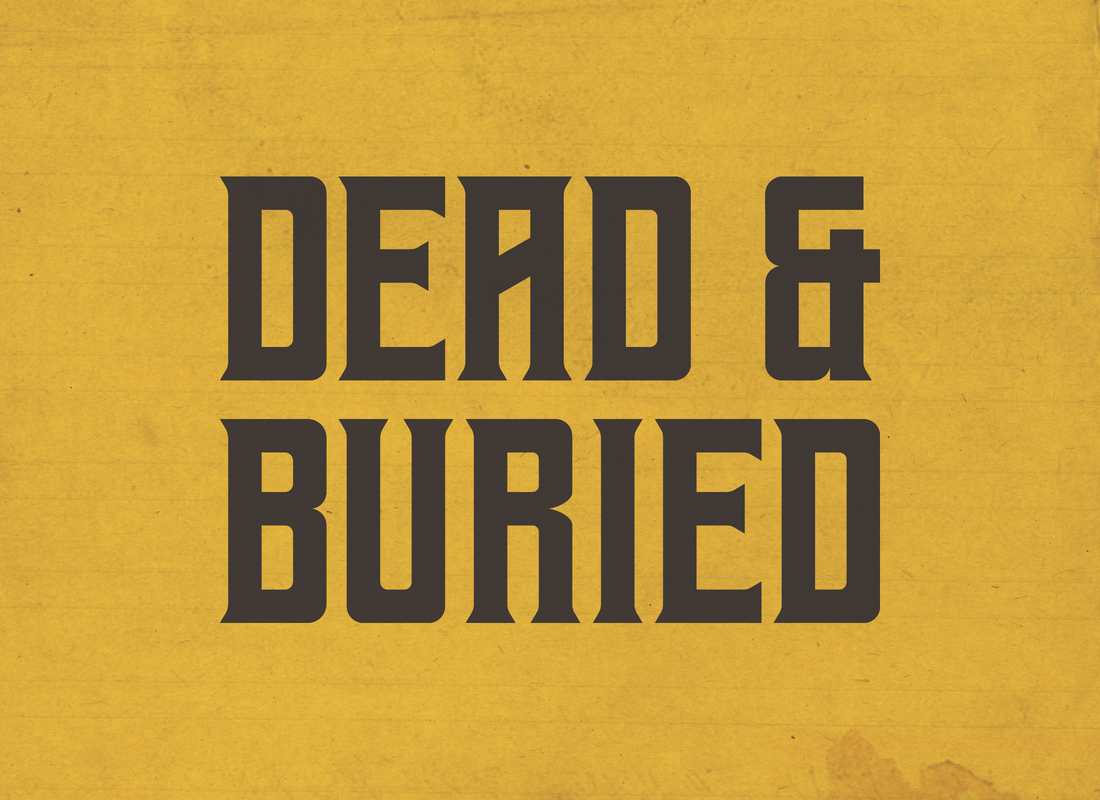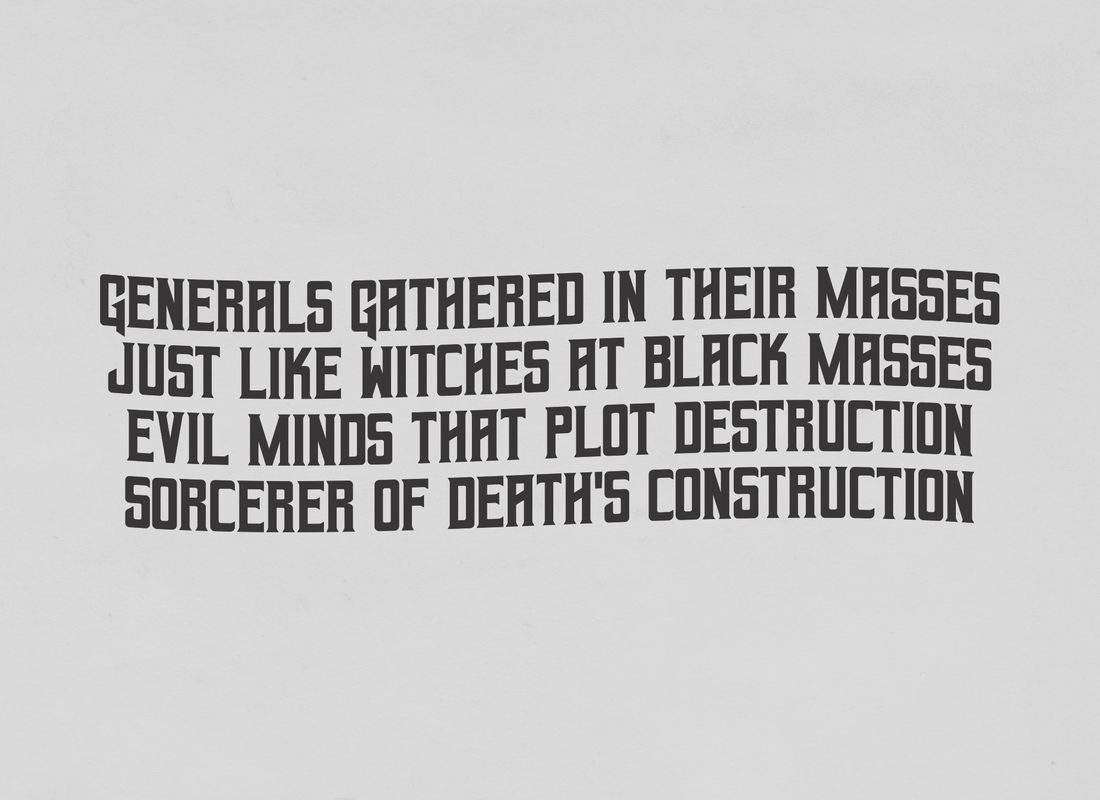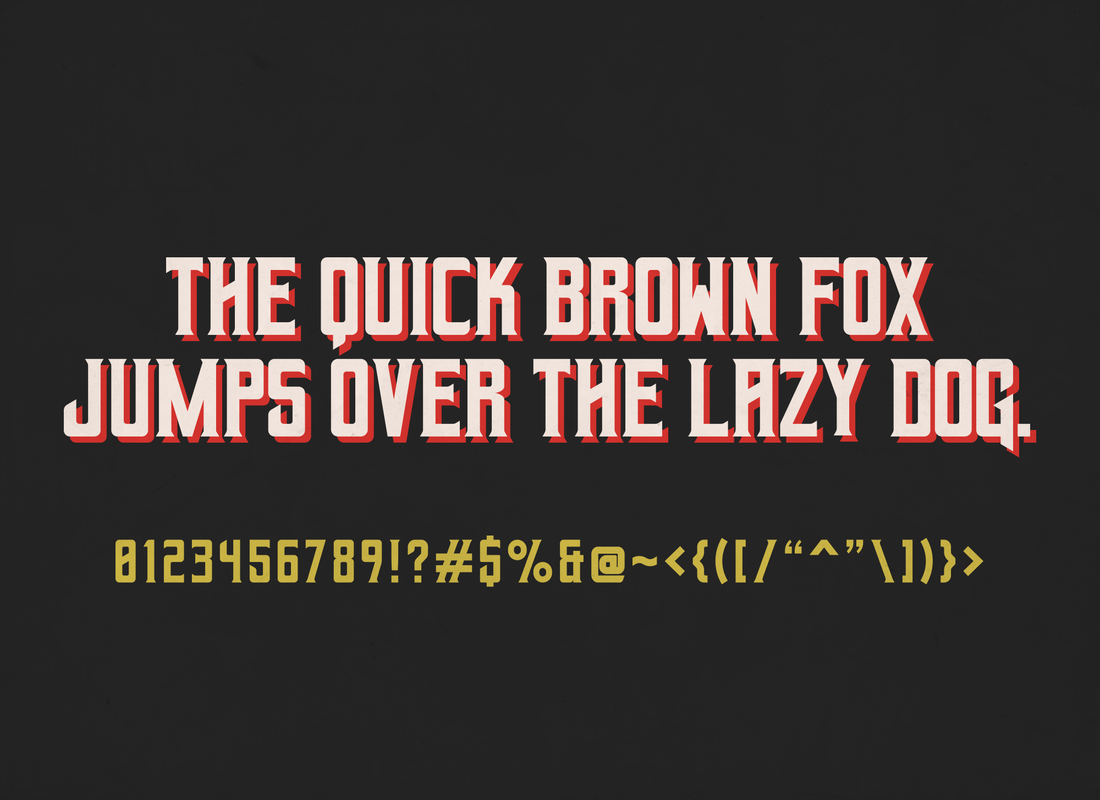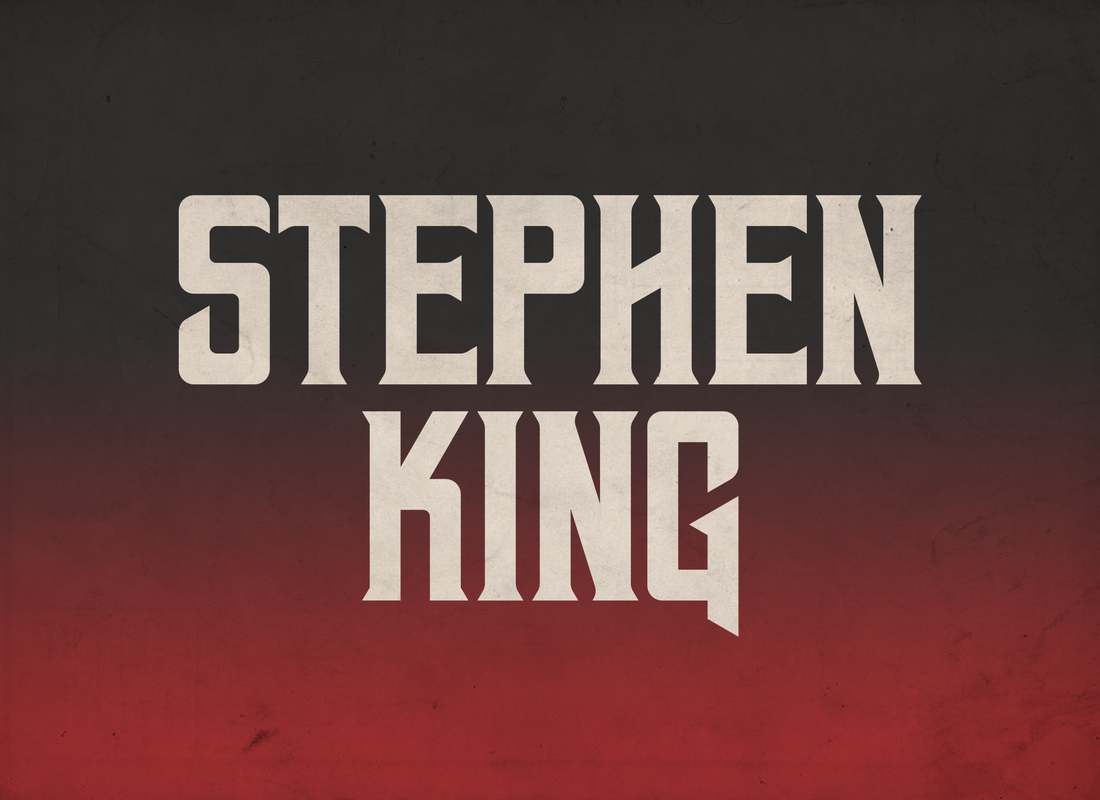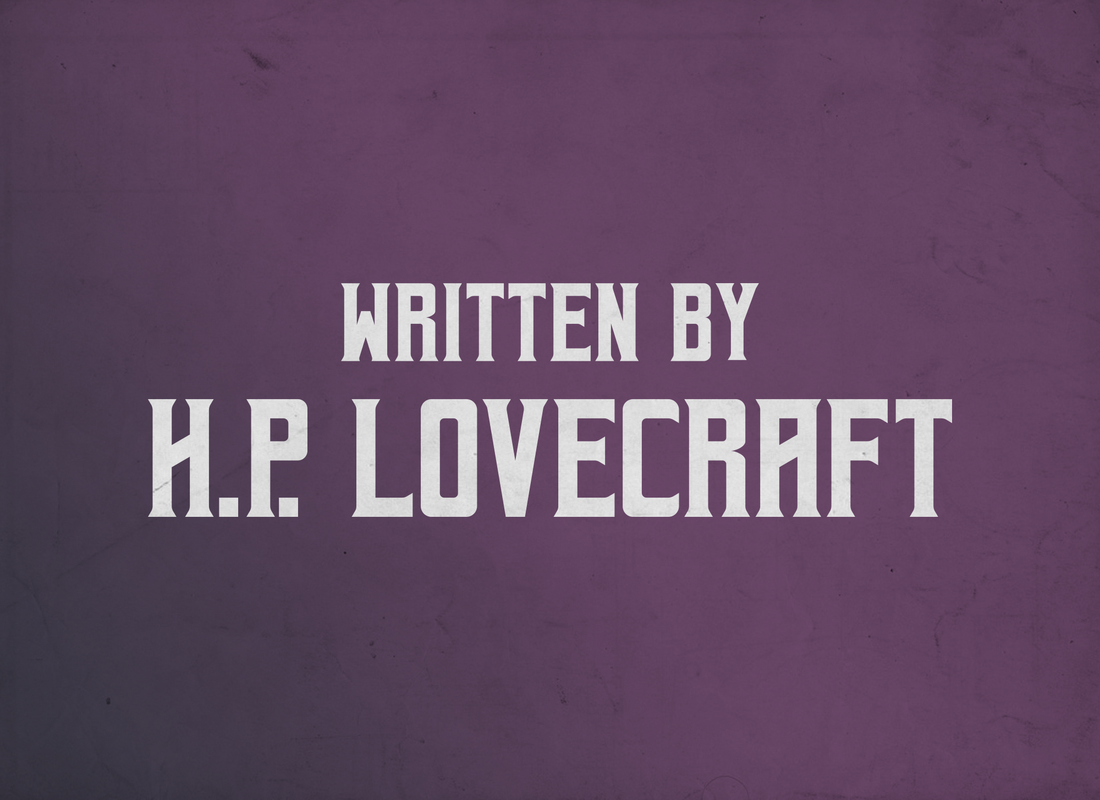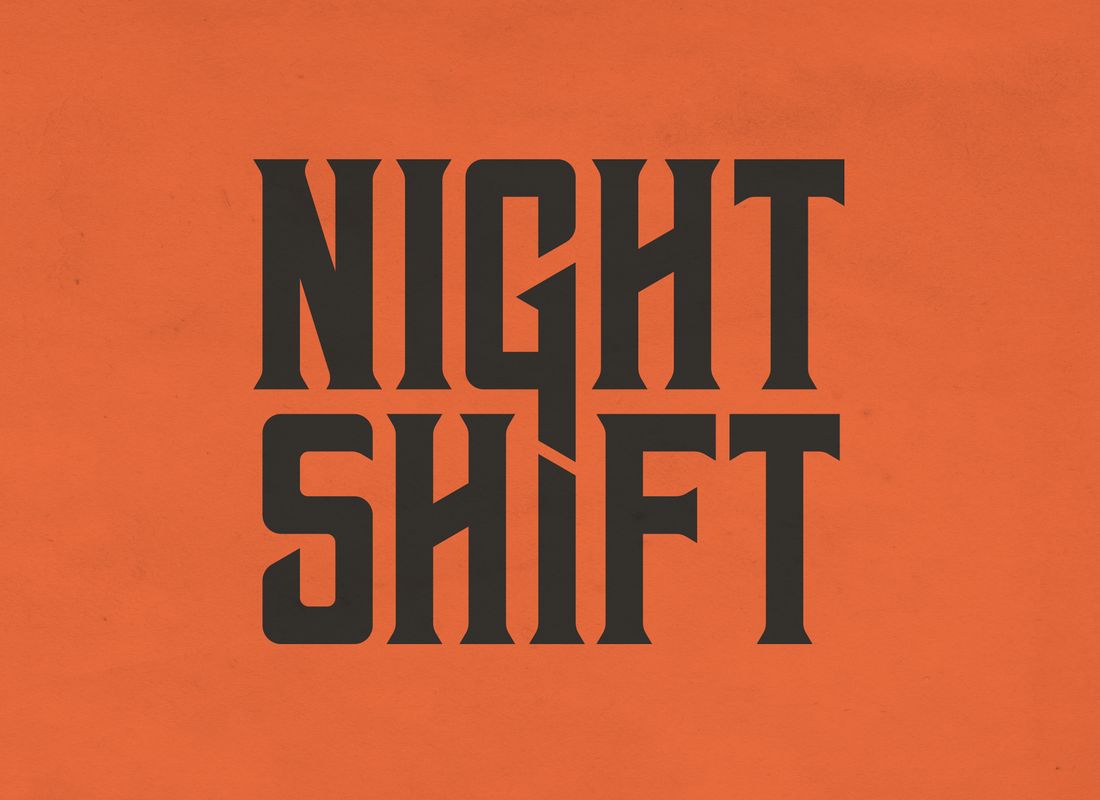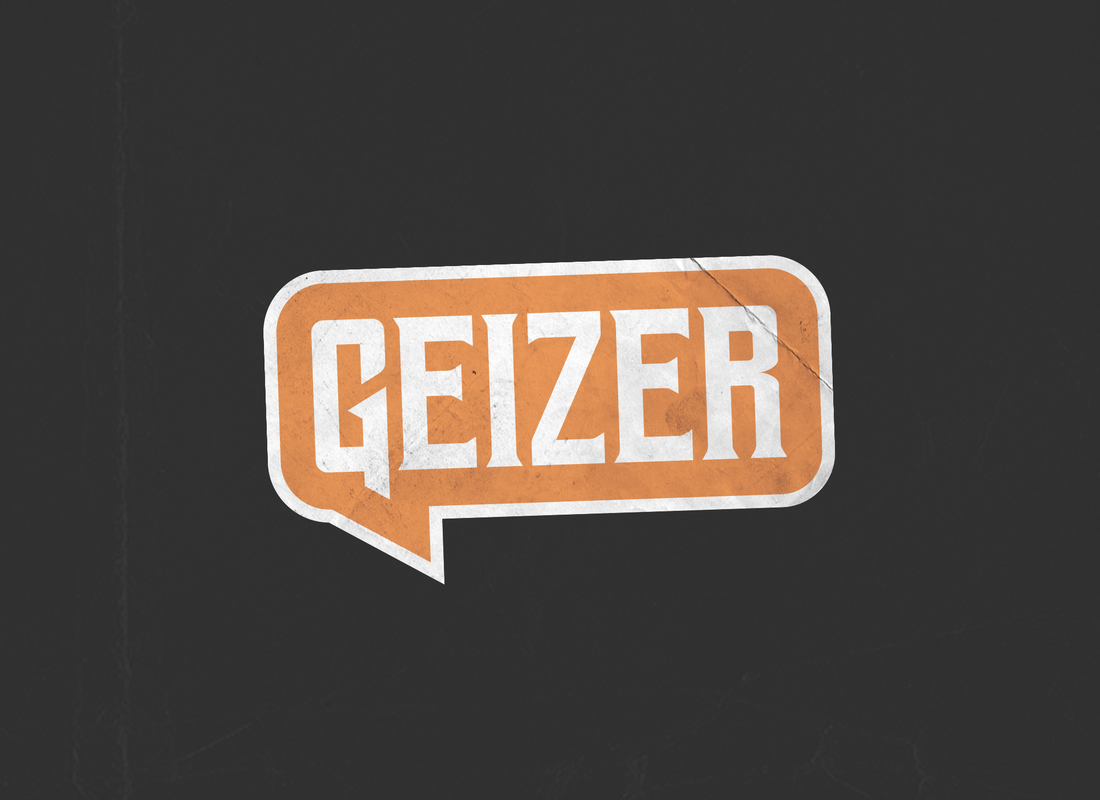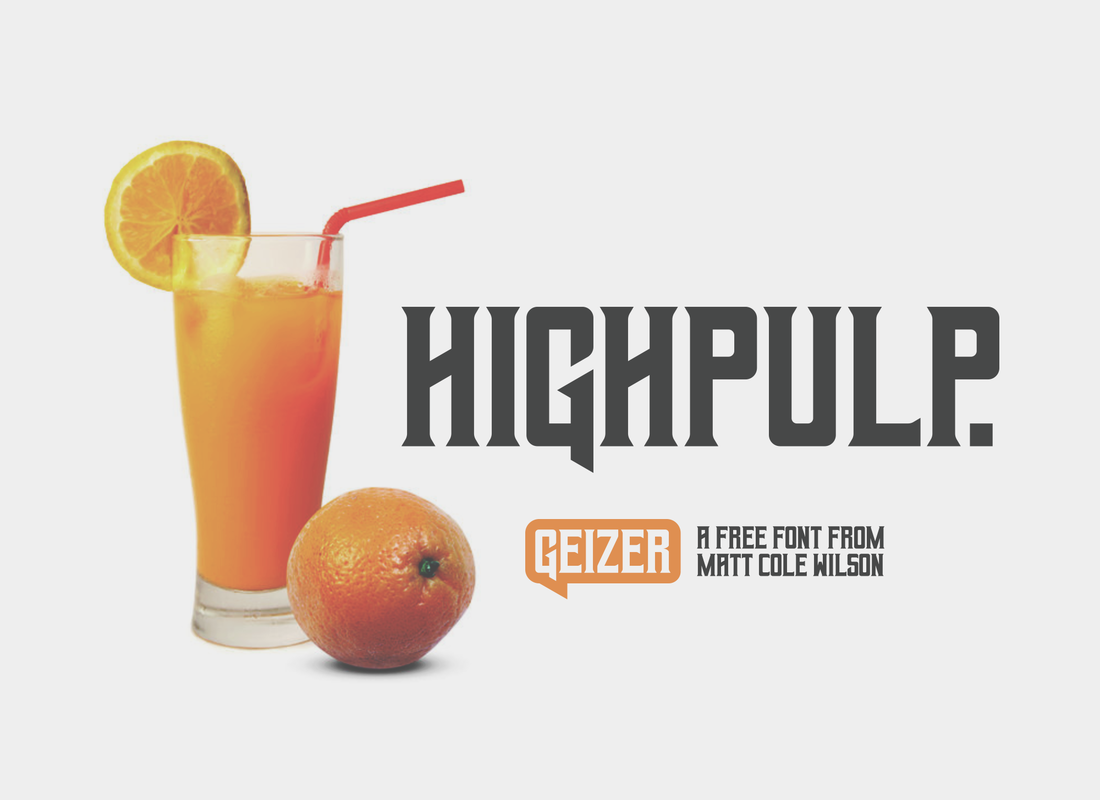
Geizer was created by Matt Cole Wilson from Kansas. Inspired by horror fiction, heavy metal, and things that go bump in the night – this font is named after Geezer Butler, the bassist of Black Sabbath. Includes A-Z in all caps, 0-9, punctuation, and common glyphs. Free for personal and commercial use!